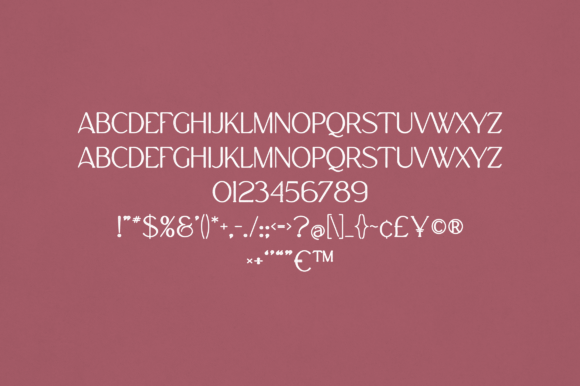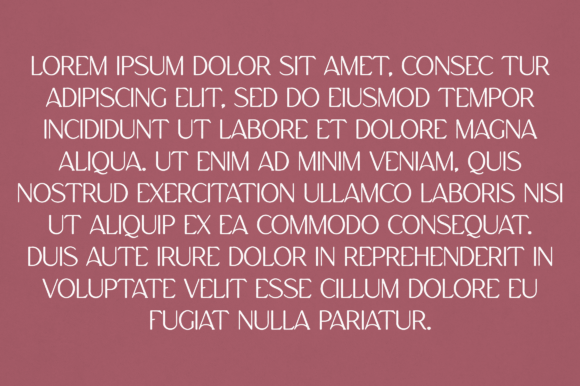
Eames Font: Elevate Your Design with Elegance and Versatility
In the world of typography, a font can make or break a design. It’s the foundation upon which your creative vision is built, and choosing the right one can be a daunting task. However, if you’re looking for a font that embodies elegance, versatility, and uniqueness, look no further than the Eames Font. This stunning typeface is designed to transform your typography into something truly remarkable, making it perfect for a wide range of design projects.
The Essence of Eames Font
Eames Font is an elegant and versatile typeface that has been crafted to enchant every logo, branding, headline, or plain text it’s applied to. Its sophisticated design ensures that it stands out in any context, whether it’s used for branding projects, home-ware designs, product packaging, magazine headers, or simply as a stylish text overlay to any background image. The font’s adaptability and aesthetic appeal make it a valuable asset for designers and crafters looking to elevate their work.
Key Features of Eames Font
- Elegant Design: Eames Font boasts an elegant design that adds a touch of sophistication to any project. Its refined lines and balanced proportions make it a pleasure to use for both headings and body text.
- Versatility: One of the standout features of Eames Font is its versatility. It can be used across a variety of mediums, from digital platforms to print materials, ensuring consistency and quality in your design work.
- Unique Typography: With Eames Font, you can create truly unique typography that sets your work apart. Its distinctive style ensures that your designs capture attention and leave a lasting impression.
- Wide Range of Applications: Whether you’re working on branding projects, home-ware designs, product packaging, or magazine headers, Eames Font is up to the task. It’s also perfect for adding a stylish text overlay to any background image, allowing you to experiment with different design elements.
Applications of Eames Font
The possibilities are endless with Eames Font. Here are some of the key areas where this font can make a significant impact:
- Branding Projects: Establish your brand’s identity with a font that exudes professionalism and elegance. Eames Font can be used to create memorable logos, business cards, and letterheads that reflect your brand’s values.
- Home-Ware Designs: Add a touch of sophistication to your home-ware designs, whether it’s for product labels, packaging, or marketing materials. Eames Font brings a level of refinement that can elevate the perceived value of your products.
- Product Packaging: Make your products stand out on the shelves with packaging that features elegant and eye-catching typography. Eames Font can help you achieve this, ensuring your packaging design is both functional and visually appealing.
- Magazine Headers: Create striking magazine headers that grab readers’ attention. Eames Font’s unique style and elegance make it perfect for headlines, adding a touch of class to your publication.
- Text Overlays: Enhance your background images with stylish text overlays. Eames Font offers a range of possibilities for experimenting with different text styles and colors, allowing you to find the perfect combination for your design.
Why Choose Eames Font?
In a sea of fonts, Eames Font stands out for its elegance, versatility, and uniqueness. Here are a few reasons why designers and crafters are choosing Eames Font for their projects:
- Time-Saving: With Eames Font, you can achieve professional-looking results without spending hours on custom typography. Its ready-to-use design saves you time and effort, allowing you to focus on other aspects of your project.
- Consistency: Using a consistent font across your projects helps to build a strong brand identity. Eames Font’s versatility ensures it can be used across various mediums, maintaining consistency in your design work.
- Support for Creative Projects: Eames Font is more than just a typeface; it’s a tool that supports your creative projects. Whether you’re a professional designer or a crafter, this font provides the flexibility and elegance you need to bring your ideas to life.
Eames Font is a game-changer for designers and crafters looking to elevate their typography. Its elegant design, versatility, and uniqueness make it an invaluable asset for a wide range of projects. Whether you’re working on branding, home-ware designs, product packaging, or simply looking for a stylish text overlay, Eames Font is the perfect choice. With this font, you can transform your typography into something truly remarkable, ensuring your designs stand out and leave a lasting impression.